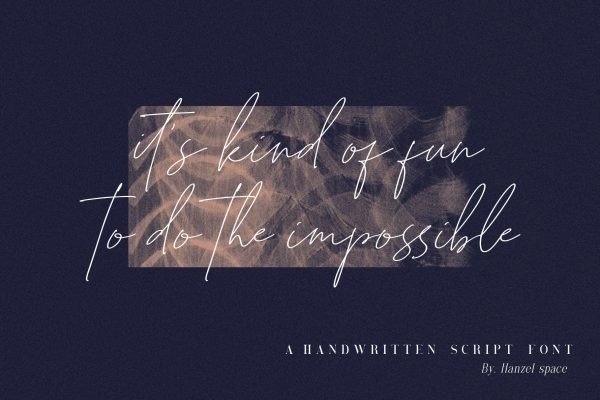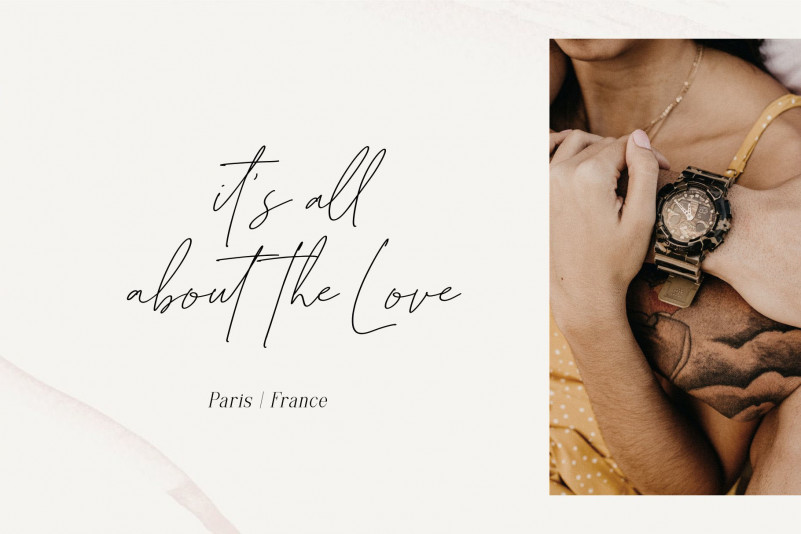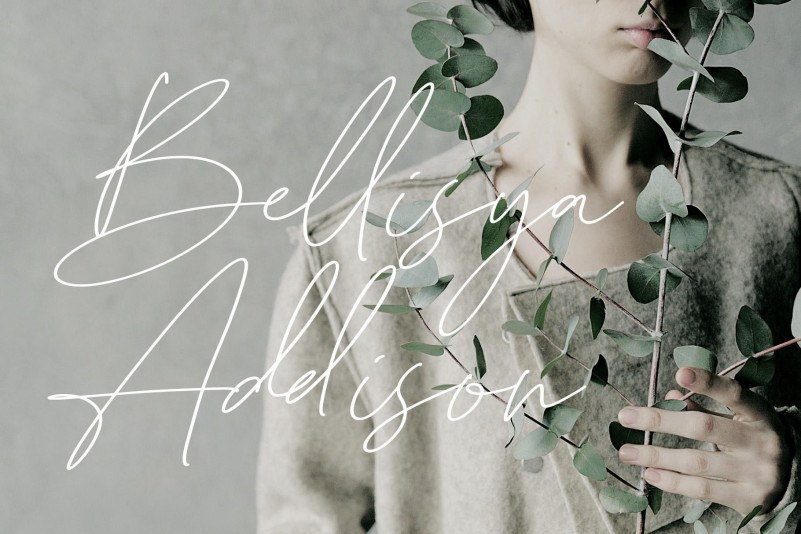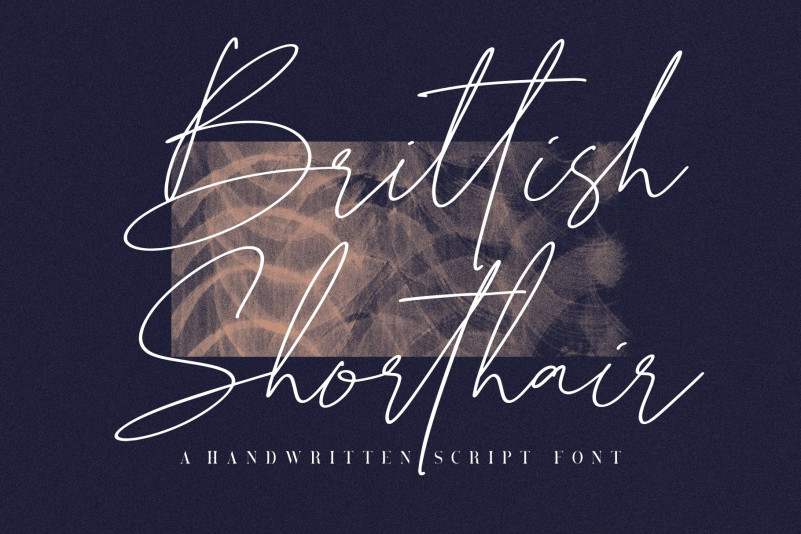
British Shorthair Script Font
British Shorthair Script Font is a delicate, elegant and flowing handwritten typeface created by Hanzel Space with its own unique curves and an elegant inky flow. British Shorthair is perfect for branding projects, logo, wedding designs, social media posts, advertisements, product packaging, product designs, label, website, photography, watermark, invitation, stationery and any projects that need handwriting taste.